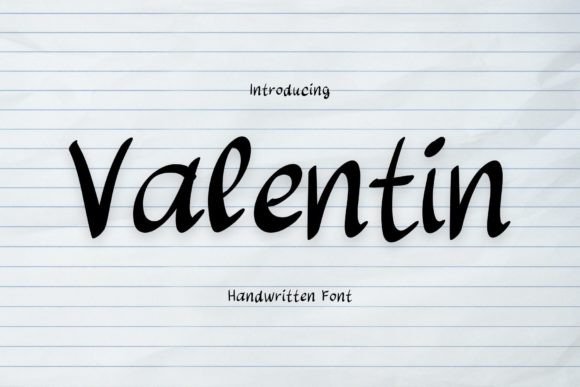
Prepare to be captivated by Valentin Font, a charming handwritten font that exudes playfulness and authenticity. Step into a world of creativity where your designs come alive with a touch of elegance and a sprinkle of fun. Valentin Font is the perfect companion for those seeking a font that speaks to the heart.
With its delicate strokes and natural flow, Valentin Font adds a personal touch to your projects. Whether you're crafting heartfelt blog posts, designing eye-catching logos, or creating memorable branding, Valentin Font seamlessly weaves its magic, leaving a lasting impression on your audience.
Imagine your designs adorned with Valentin Font's graceful curves and whimsical charm. Picture your invitations and greeting cards radiating warmth and authenticity, enticing recipients to cherish every word. Let Valentin Font guide you as you create planners and photo albums that capture life's precious moments, transforming them into timeless keepsakes.
Unlock your creativity and explore the endless possibilities that await with Valentin Font. Its versatility knows no bounds, extending to decorations, social media posts, and any project that calls for a touch of handwritten elegance. Embrace the joy of self-expression and let Valentin Font become your muse, inspiring you to create designs that resonate with your audience.